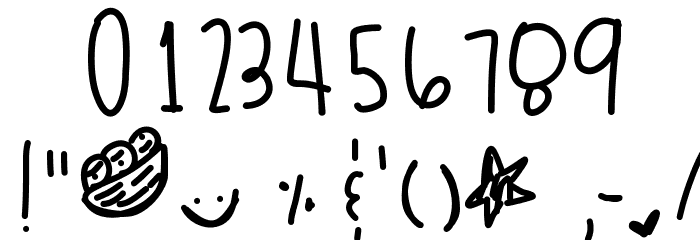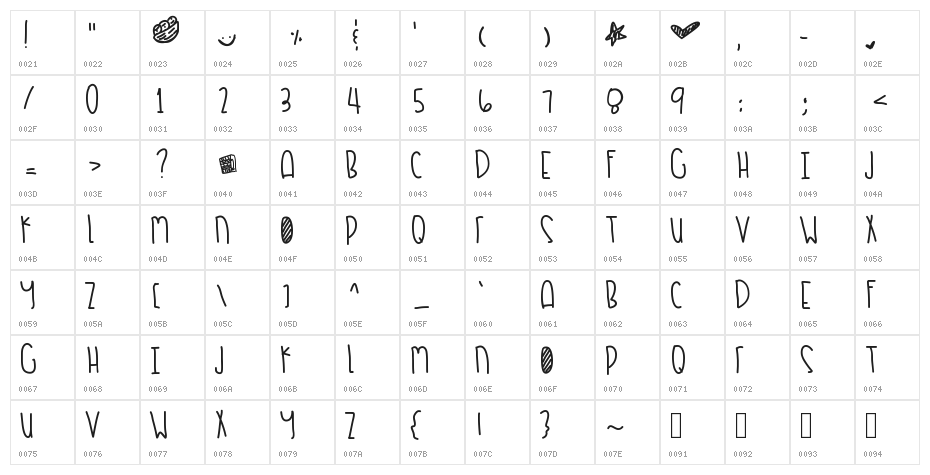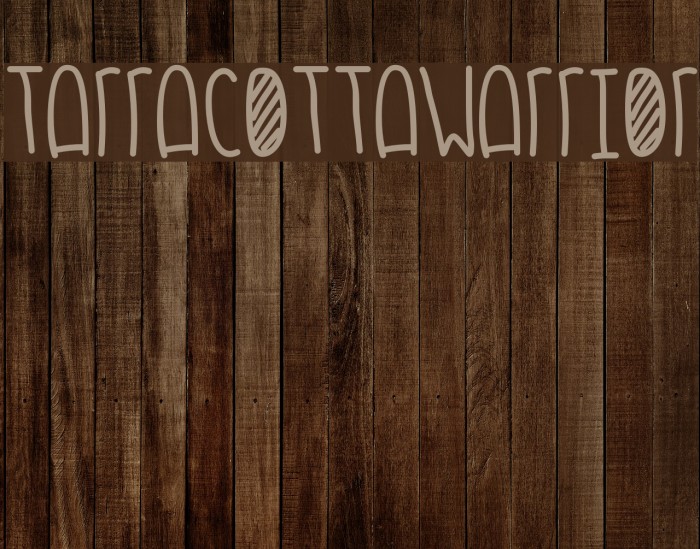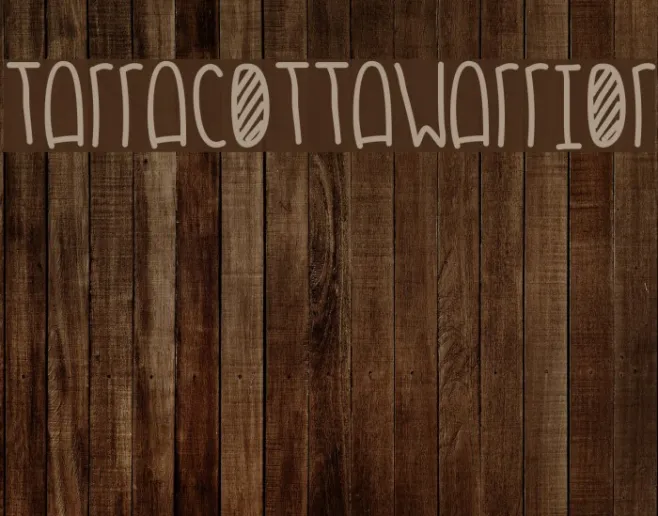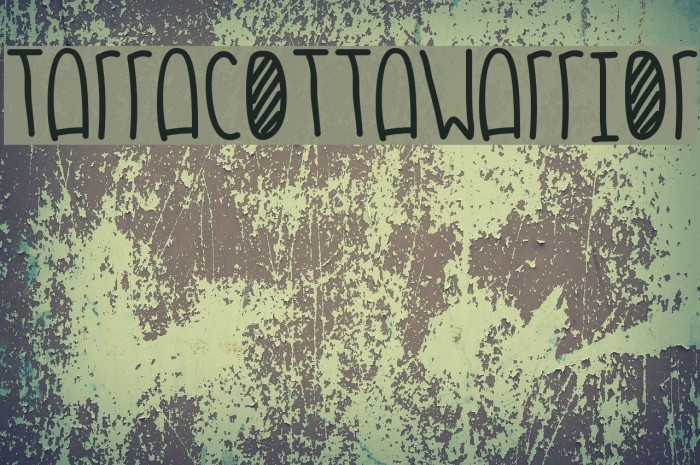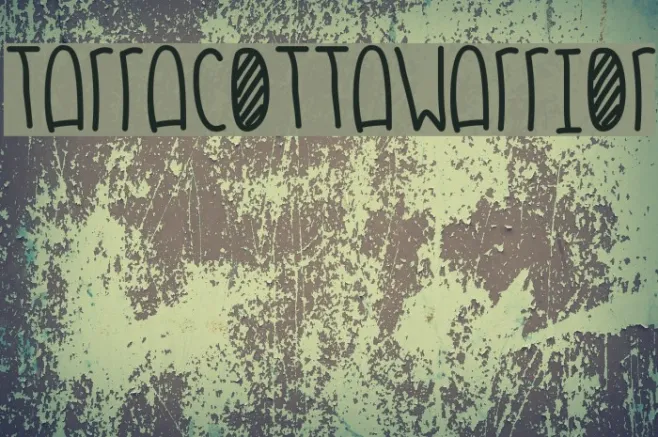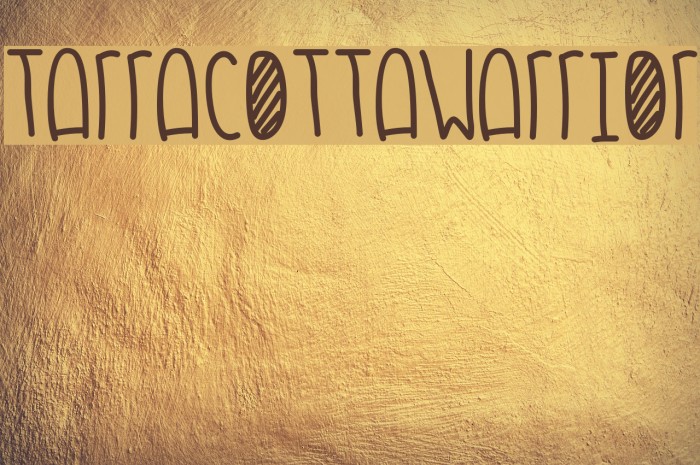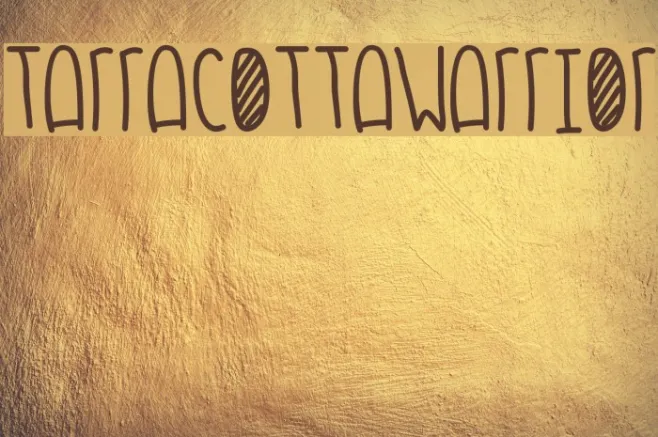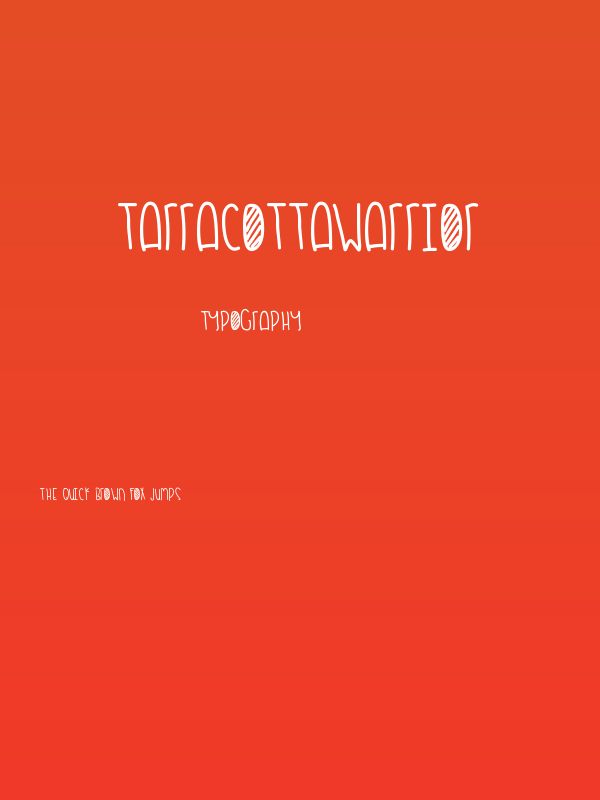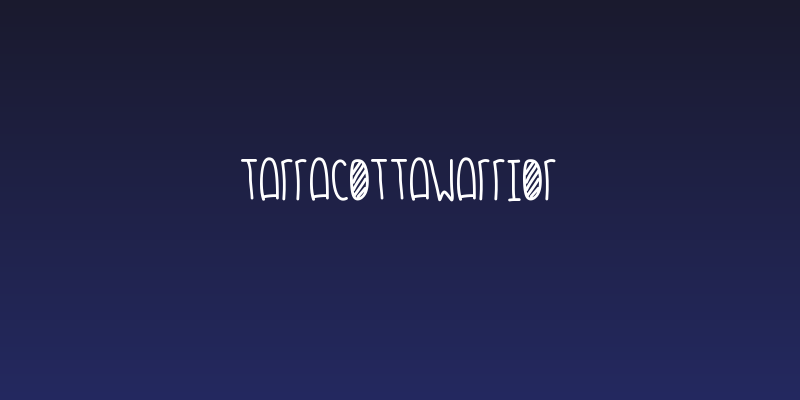
TarracottaWarrior Font
TarracottaWarrior Description
This playful and quirky font features tall, narrow characters with a hand-drawn aesthetic. The uppercase and lowercase letters maintain a consistent height, giving it a uniform appearance. The strokes are slightly irregular, adding a whimsical touch. The numbers are distinct and easy to read, while the special characters include fun elements like a smiley face and a star, enhancing its playful nature. This font exudes a casual and friendly vibe, making it suitable for informal and creative projects.
| Proposed Projects | Ideal for children's books, greeting cards, playful branding, and creative posters. |